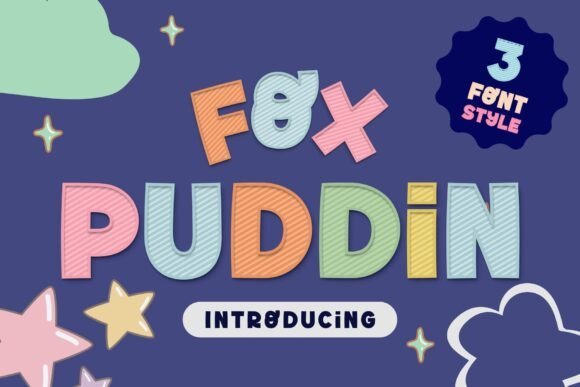
Designing with Joy: Introducing Fox Puddin Font
Have you ever sat at your desk, staring at a blank page, and suddenly felt the urge to create something playful and whimsical? That’s exactly where Fox Puddin Font comes in – a delightful display font that’s bursting with personality and designed to put a smile on your face.
As a designer, you know that the right font can make all the difference in bringing your project to life. Fox Puddin Font is perfect for kids’ projects, playful branding, school designs, and everything cute and colorful. With three styles to mix and match – Regular, Strokes, and Outline – you’ll have endless possibilities for creative expression. Whether you’re working on children’s books, retro packaging, or party invitations, Fox Puddin Font brings energy and charm to every project, making it a valuable addition to any designer’s toolkit.
Fox Puddin Font Key Features
- Font Family: Fox Puddin Font is a sans-serif font family.
- Size: Fox Puddin Font comes in 8 different font weights, ranging from Light to Black.
- Unique Characteristics: The font features a unique, playful design with rounded edges and a friendly feel, making it suitable for informal and creative projects.
- Resolution: The font is designed for use at high resolutions, making it ideal for digital applications such as web design, mobile apps, and digital signage.
- Language Support: Fox Puddin Font supports a wide range of languages, including Latin, Greek, and Cyrillic alphabets.
Designer Review: Fox Puddin Font
Overall, I have mixed feelings about the Fox Puddin Font. While it has some unique qualities that make it stand out, it also has some limitations that may not make it the best choice for every project.
- Handwritten feel: Fox Puddin Font has a distinct handwritten feel that can add a touch of personality to your designs.
- Playful vibe: The font has a playful, carefree vibe that’s perfect for projects that require a lighthearted tone.
- Good for titles and headings: The font is well-suited for titles and headings, as it’s clear and easy to read.
- Not ideal for body text: While the font is great for titles and headings, it may not be the best choice for body text, as it can be difficult to read in large blocks of text.
- Limited character set: The font’s character set is limited, which may not be suitable for projects that require a wide range of characters.
- Not suitable for formal designs: The font’s playful vibe may not be suitable for formal designs or projects that require a more professional tone.
In conclusion, Fox Puddin Font is a unique and playful font that can add a touch of personality to your designs. However, it may not be the best choice for every project, and its limitations should be carefully considered before using it.
Tip: Use Fox Puddin Font for whimsical and playful designs, such as children’s party invitations or social media graphics.
Tip: Use Fox Puddin Font for creative and eye-catching designs, such as logos or typography-based art.
Tip: Use Fox Puddin Font for creative and engaging presentations or documents, such as infographics or reports.
Fox Puddin Font is ideal for:
- Social media graphics and advertising
2. Dancing Script
Dancing Script is a beautiful, cursive font that’s perfect for adding a sense of whimsy and playfulness to your designs. It’s ideal for use in advertising, social media graphics, and other materials that require a fun and lively tone. While Dancing Script has a more flowing and expressive look compared to Fox Puddin Font, it’s not as versatile and may not be suitable for formal or professional designs.
Carolyna Pro is a modern, script font that’s perfect for adding a touch of sophistication and elegance to your designs. It’s ideal for use in branding, advertising, and other materials that require a high-end look. Carolyna Pro has a more refined and polished look compared to Fox Puddin Font, making it suitable for luxury brands and high-end events.
Yes, Fox Puddin Font is designed to be highly customizable. You can use font editing software to modify the font’s characteristics, such as font size, color, and style. However, please note that any modifications made to the original font may void the licensing agreement.
Q: Does Fox Puddin Font support Unicode characters?
Yes, Fox Puddin Font supports a wide range of Unicode characters, including Latin, Cyrillic, and Greek alphabets. This ensures that the font can be used for languages that require these characters, such as Russian, Ukrainian, and Greek.